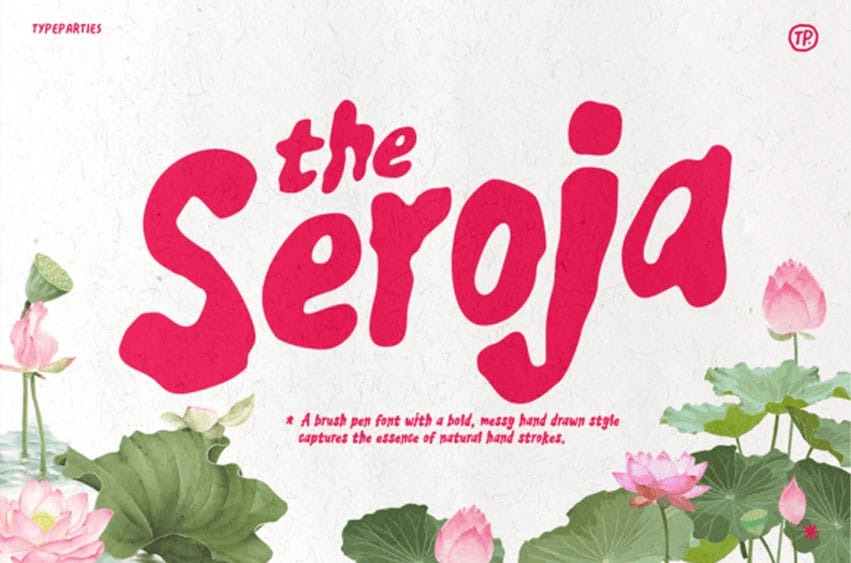
Seroja Font with a bold, messy handwriting style that captures the essence of natural hand strokes, blending energy with authenticity. Its thick, fluid lines showcase the organic flow of real brush movements, complete with subtle variations in pressure, ink texture, and imperfect edges.
This style feels raw and genuine, evoking the spontaneity of handwriting on paper. Perfect for designs that need a personal, expressive touch, this font works beautifully in bold headlines, creative branding, or any project seeking a natural and artistic vibe.